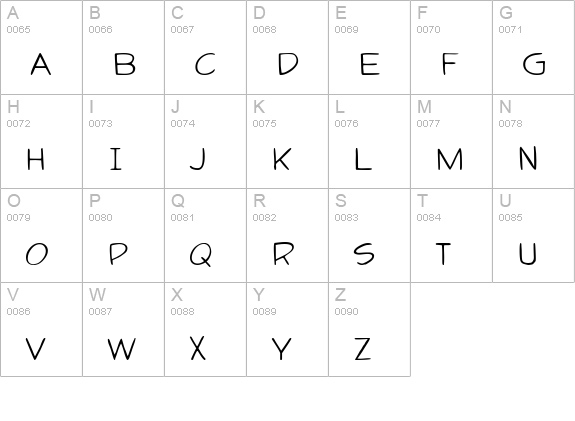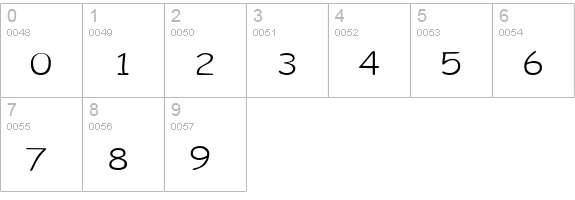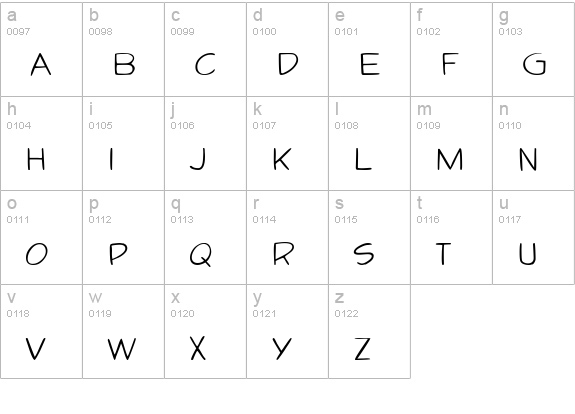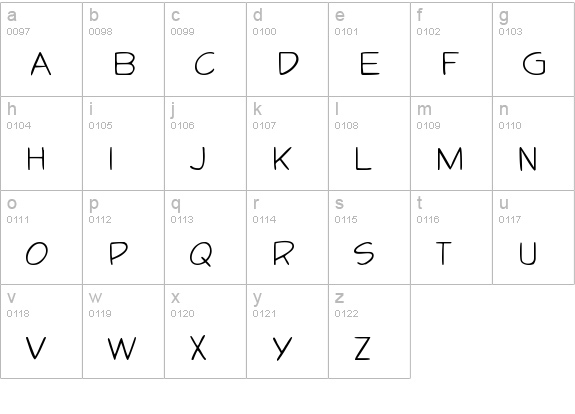
P22 Pop Art Comic Font Details
Introducing the captivating P22 Pop Art Comic font, a vibrant and playful typeface that brings the spirit of the pop art movement to your designs. This font is a modern interpretation of the iconic comic book style, with bold and exaggerated letterforms that burst with energy and personality. P22 Pop Art Comic is a versatile font that can be used for a wide range of design projects, from comic books and graphic novels to posters, advertisements, and social media graphics. Its bold and expressive characters make a powerful statement and instantly grab attention, leaving a lasting impression on your audience. What sets P22 Pop Art Comic apart is not just its stunning visual appeal, but also its accessibility. This font is freely available to download at FontsMarket.com, making it an invaluable resource for designers, artists, and creatives who want to add a touch of pop art flair to their work without breaking the bank. Whether you're a seasoned professional or a budding enthusiast, this font is the perfect tool to unleash your creativity and make a bold statement. With P22 Pop Art Comic, you have the freedom to express yourself in a truly unique way. Its playful and dynamic design allows you to experiment with different layouts, colors, and effects, creating eye-catching compositions that stand out from the crowd. Let your imagination run wild as you bring your designs to life with this captivating font. Embrace the spirit of the pop art movement and make a statement with P22 Pop Art Comic. Download it for free at FontsMarket.com and let your creativity take flight. Whether you're creating a comic book, designing a poster, or simply adding a pop of personality to your next project, this font is sure to make a lasting impression. Get ready to unleash your inner artist and make your designs pop with P22 Pop Art Comic.